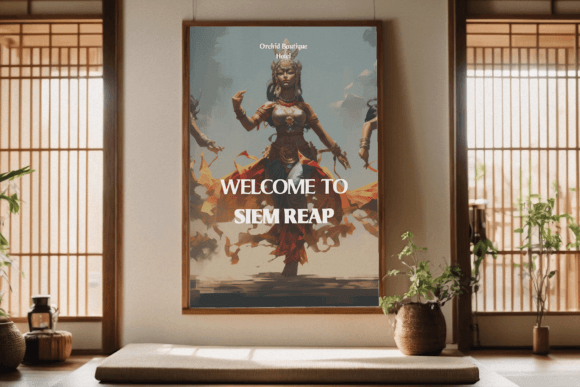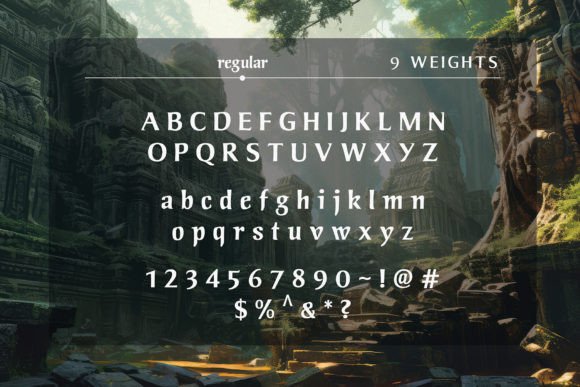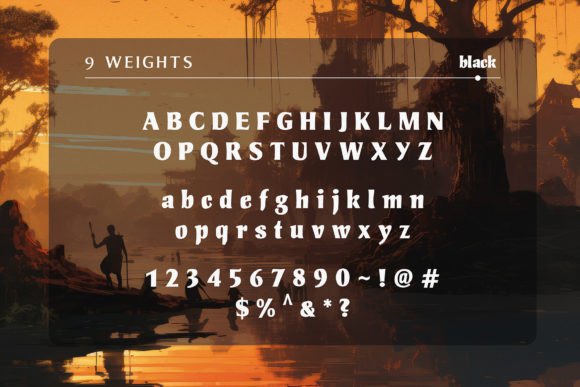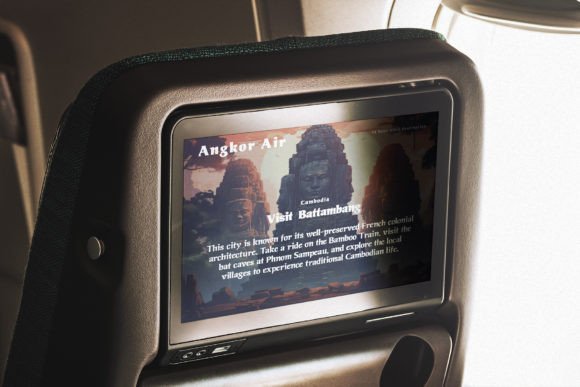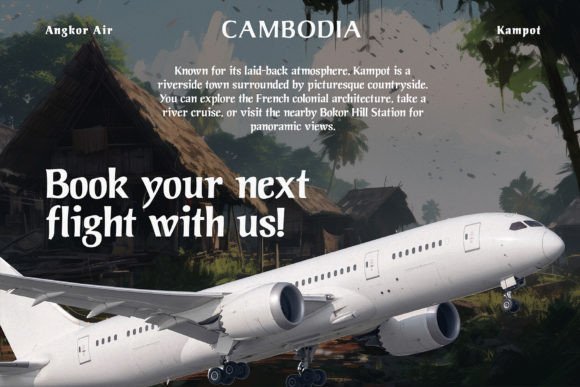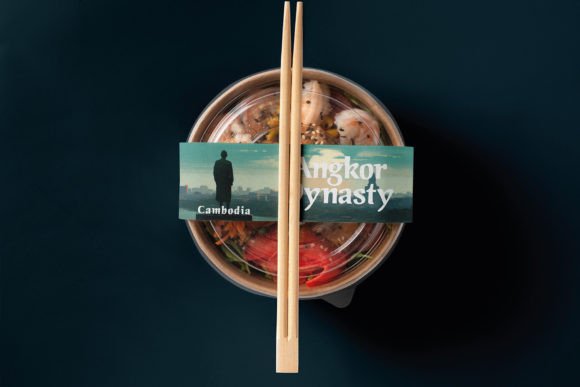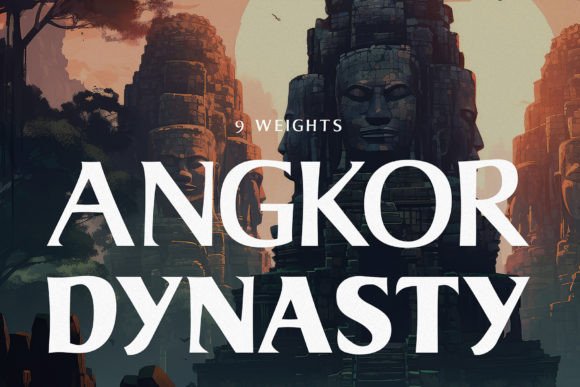
Embark on a Typographic Journey with Angkor Dynasty
As designers, we’ve all been there – stuck in the midst of a project, searching for that perfect font that will bring our vision to life. I recall working on a branding project for a client who wanted to evoke the mystique of ancient Cambodia. The catch? I had to find a font that would transport their audience to a bygone era. That’s when I stumbled upon Angkor Dynasty, a typeface that beautifully marries the timeless elegance of serif fonts with the rich cultural tapestry of Cambodia.
Inspired by the Ancient Angkor Civilization
Angkor Dynasty is more than just a collection of characters; it’s a tribute to a storied past, encapsulating the essence of Asian artistry and the profound depth of Cambodian heritage. This font is a bridge between the old and the new, meticulously crafted to bring the powerful stories of the past into the present. Each letter is infused with the spirit of Cambodian history, reflecting the intricate carvings and architectural brilliance of the Angkor temples.
A Closer Look at Angkor Dynasty
The typeface’s unique features – from its elegant curves to its distinctive serifs – echo the exquisite craftsmanship of ancient Khmer script. This makes Angkor Dynasty an ideal choice for projects that seek to evoke a sense of wonder and historical richness. Whether you’re creating a brand identity, crafting a website, or designing a marketing campaign, this font is sure to leave a lasting impression.
What I Love About Angkor Dynasty
- ✨ Elegant and refined design that evokes a sense of luxury and sophistication
- 🌟 Unique and distinctive serifs that add a touch of cultural authenticity
- 💻 OpenType features that allow for creative experimentation and customization
While Angkor Dynasty is an exceptional font, there are a few quirks to be aware of:
- 🤔 Limited availability of certain characters and glyphs
The Story Behind Angkor Dynasty
Angkor Dynasty was designed by a team of typographers who were inspired by the rich cultural heritage of Cambodia. The font’s creator, a young designer from Phnom Penh, was fascinated by the intricate carvings and architectural brilliance of the Angkor temples. With Angkor Dynasty, the designer aimed to capture the essence of Cambodian history and bring it to life in a modern typeface.
| What is Angkor Dynasty? | Angkor Dynasty is a serif typeface inspired by the ancient Angkor civilization and the rich cultural heritage of Cambodia. |